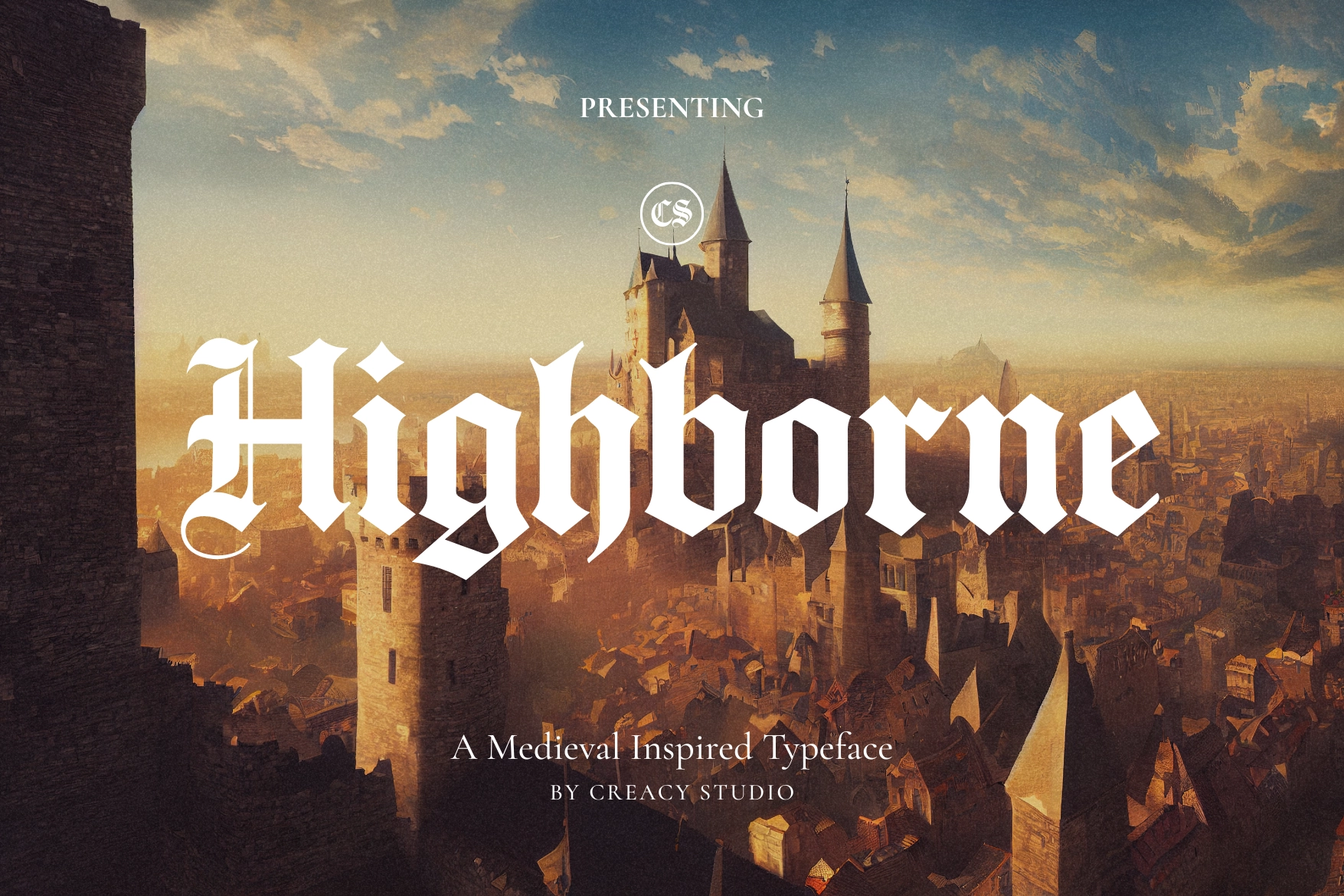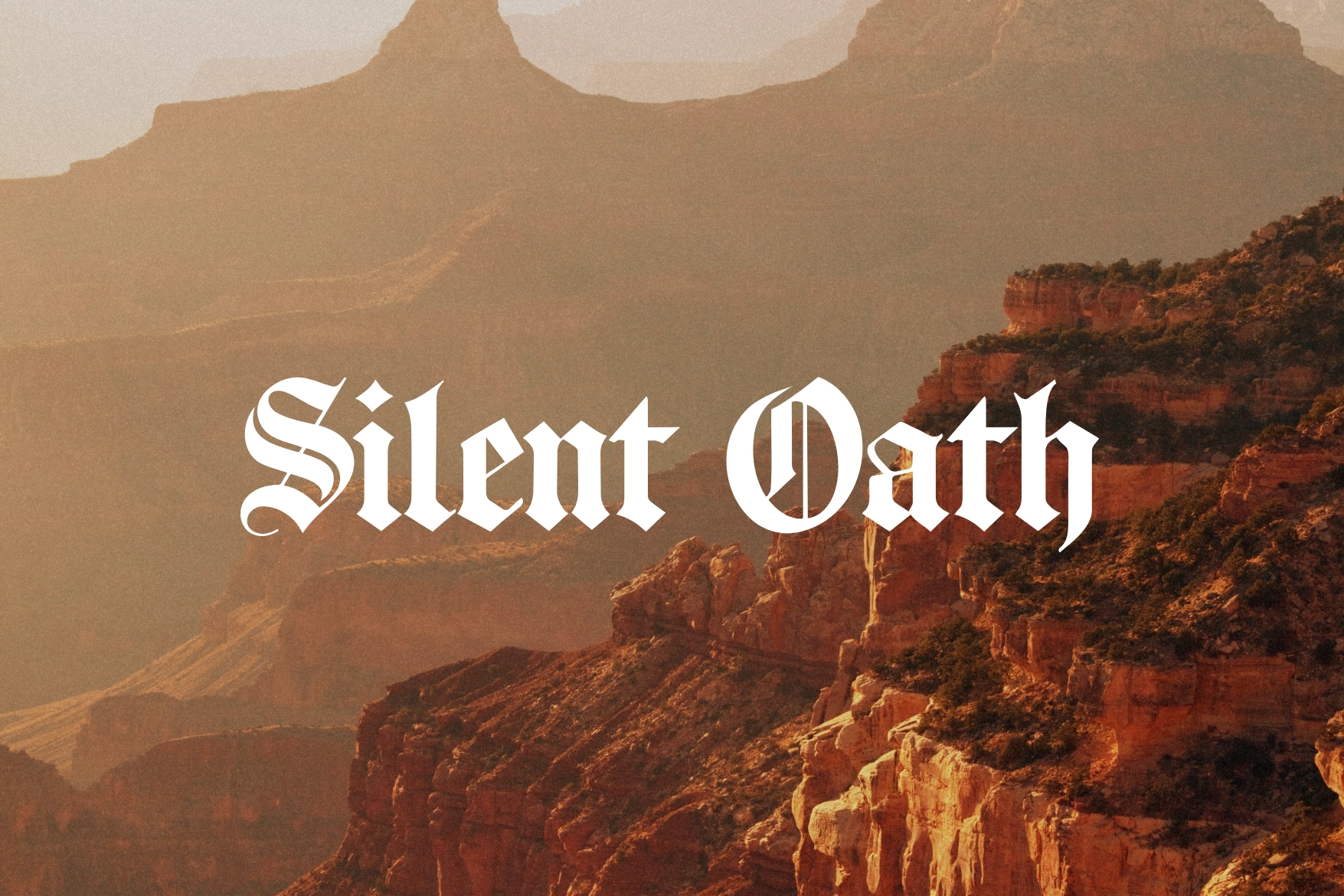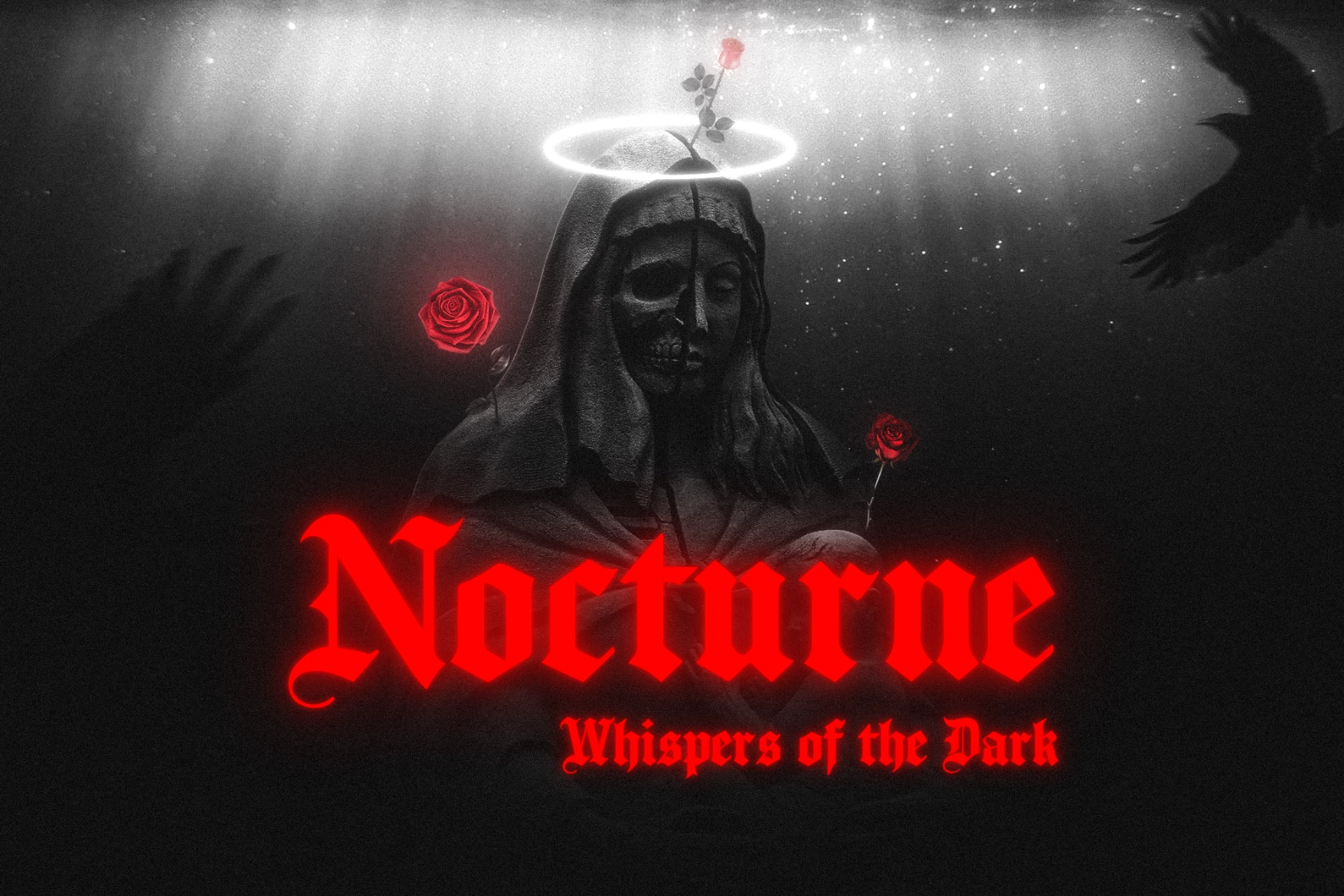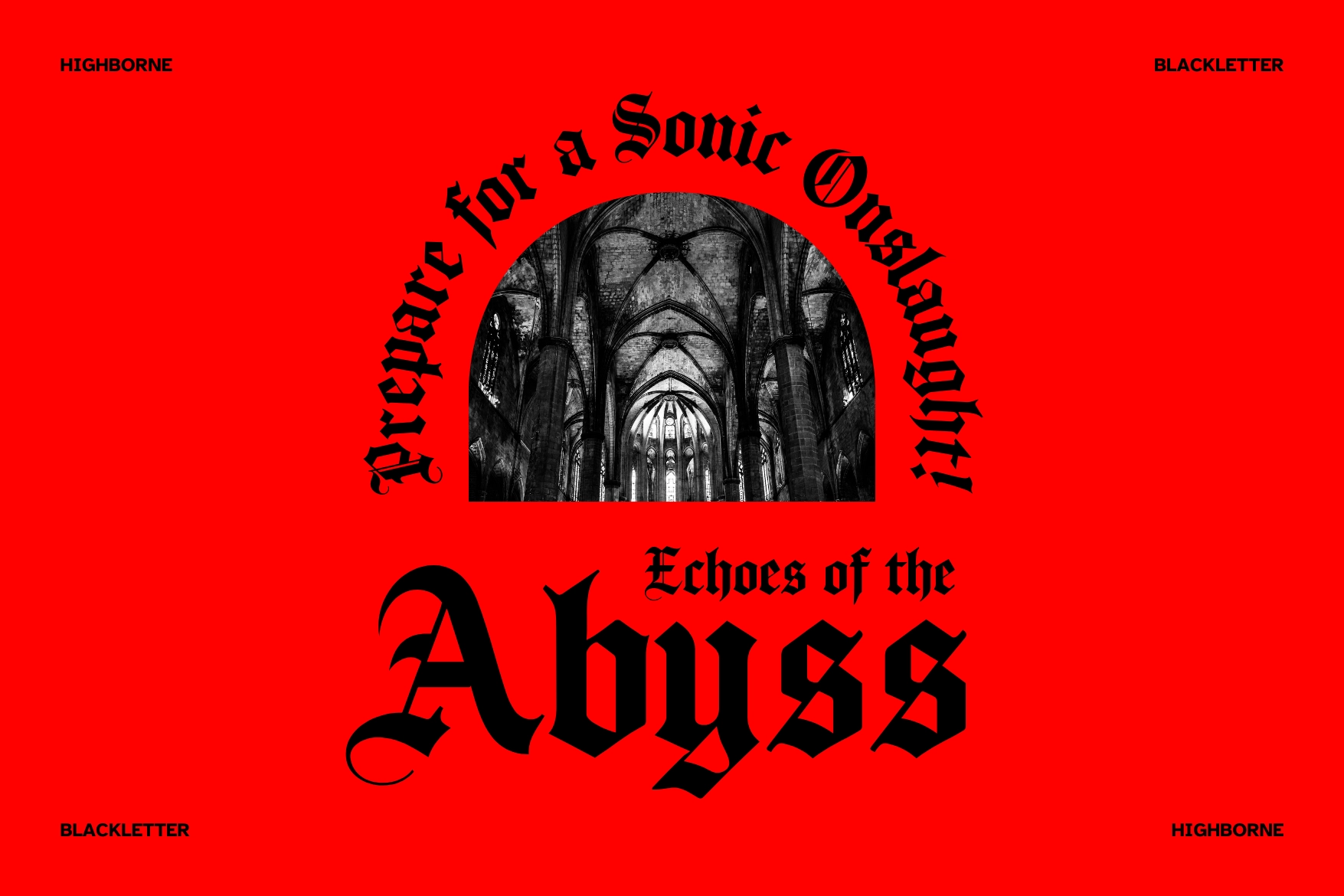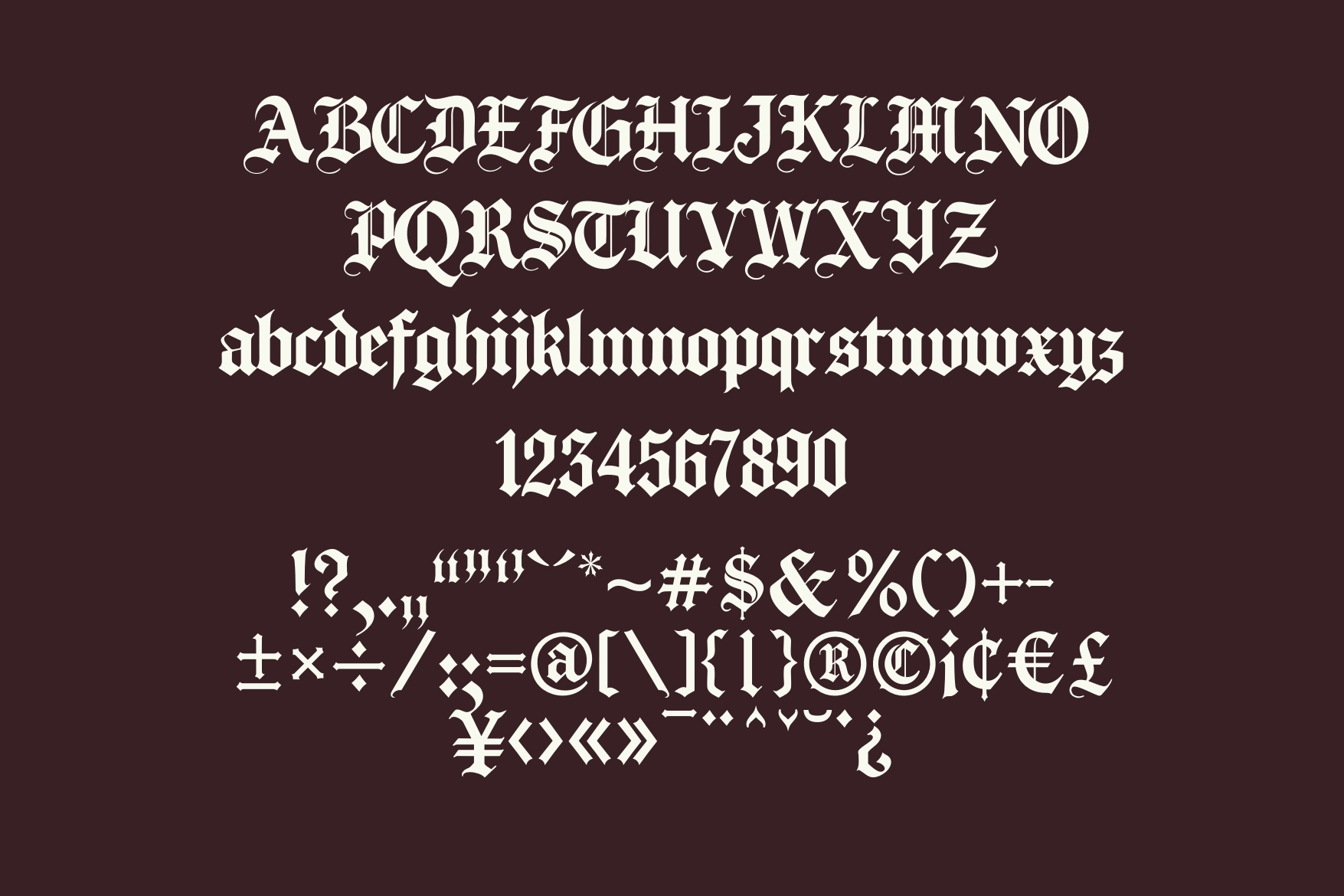
Highborne – Medieval Typeface
Step into the realm of legends with Highborne, a bold Medieval display typeface that evokes the spirit of ancient kingdoms, royal insignias, and time-worn manuscripts.
Crafted with sharp serifs and refined gothic undertones, Highborne blends the strength of medieval calligraphy with the elegance of modern design. Each letter stands tall and dignified — perfect for projects that seek power, mystery, and timeless grandeur.
From fantasy book covers to craft beer labels and cinematic posters, Highborne brings an aura of nobility to your typography.
• Uppercase & lowercase
• Numerals & punctuation
• Bonus alternates for decorative flair
Perfect For
• Medieval & fantasy branding
• Game titles & movie posters
• Book covers & editorial design
• Vintage packaging & logos
• Heritage-inspired visuals
Forge your next masterpiece with Highborne — a typeface born from history, made for modern storytellers.